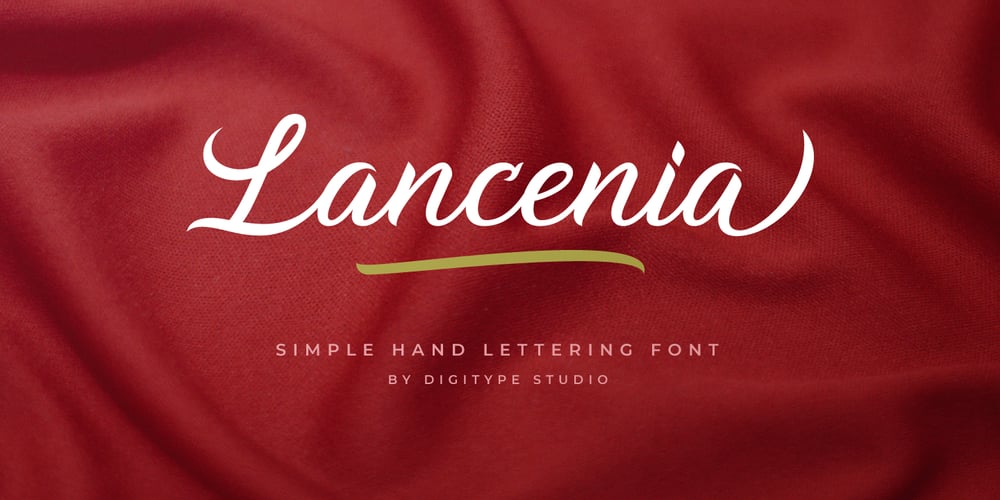
Lancenia Font Family was designed by Yusuf Niky Syahroni and published by Digitype Studio. Lancenia contains 2 styles and family package options. Lancenia – a stylish and simple handletter script typeface. This font will looks awesome and amazing in many ways on your latest design project.Lancenia is perfect for lots of different uses such as logos & branding, invitations, stationery, wedding designs, social media posts, advertisements, product packaging, product designs, labels, photography, watermarks, special events and more.This font has many OpenType features like ligatures, stylistic alternates, contextual alternates, swashes, and has multi-lingual support.